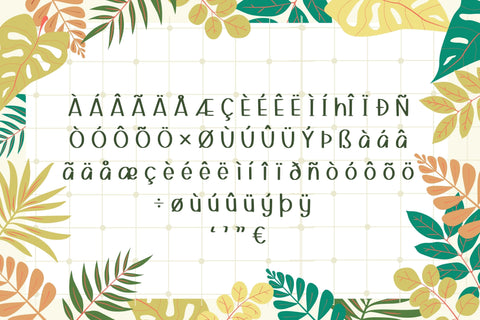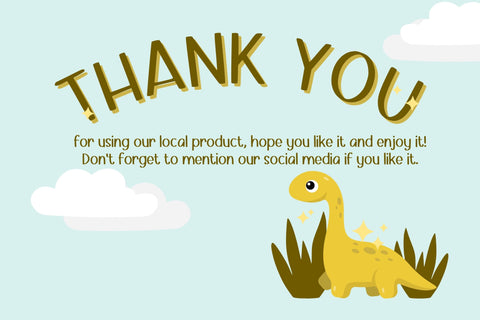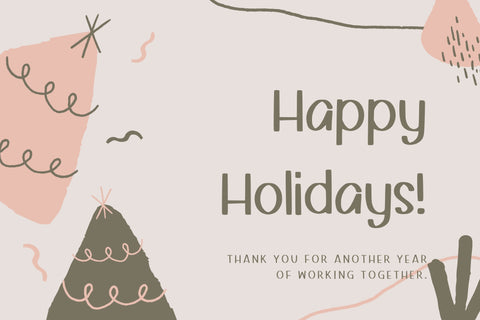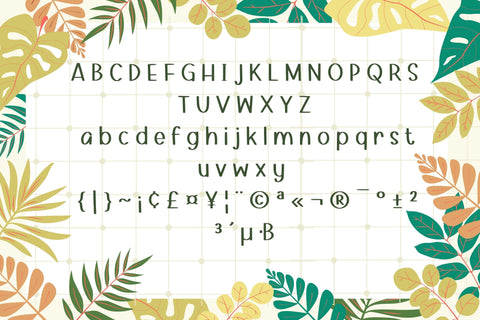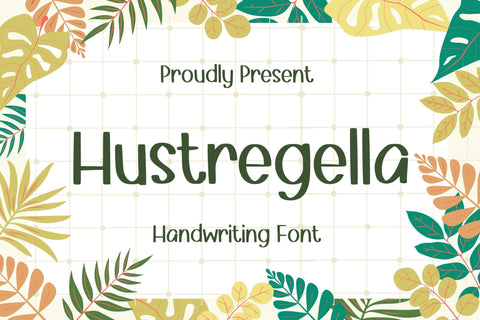
Hustregella Font
Hustregella is a cute and simple lettered handwritten font that can be used for all chalkboard quotes or teaching material! Its authentic look will add a realistic feel to your designs.